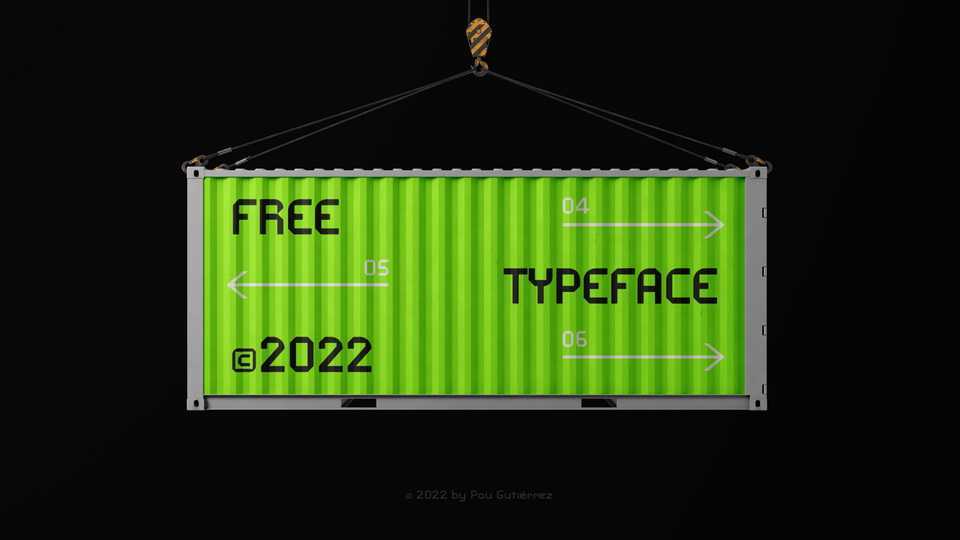
Download Guti font, a sans serif typeface that features some rounded finishes, vertical, horizontal and 45° diagonal lines. Each letterform of Guti font is made in an abstract and dynamic way to give a unique look to the font.
Designer: Pau Gutiérrez